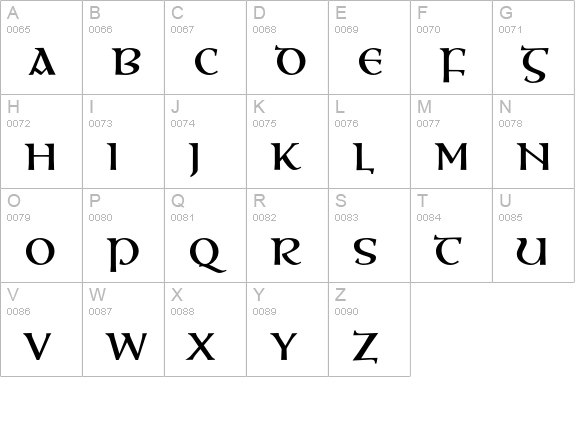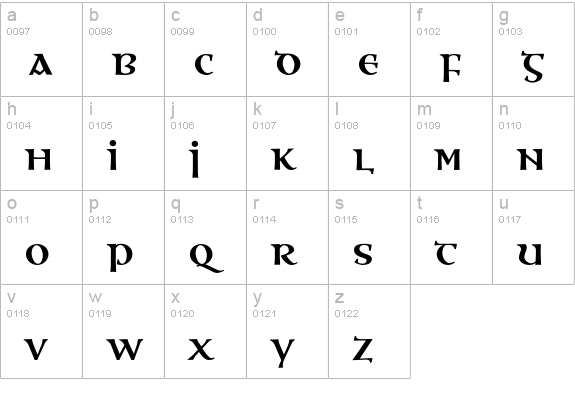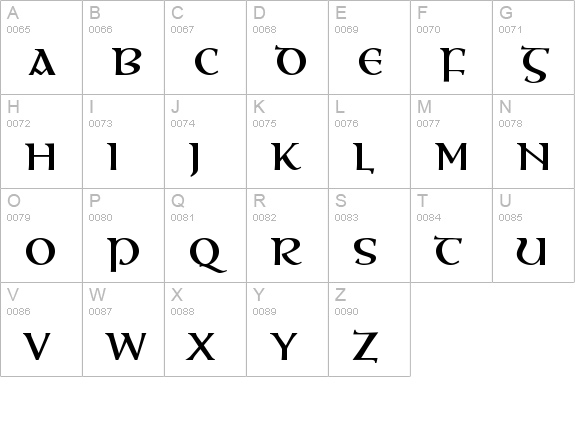
OssianEF-BoldSC Font Details
OssianEF-BoldSC is a striking and modern font that exudes confidence and strength. With its bold and stylish design, OssianEF-BoldSC is perfect for making a statement in your design projects. The sleek and elegant letterforms of this font make it ideal for headlines, logos, and branding materials. What sets OssianEF-BoldSC apart is that it is available for free download at FontsMarket.com. This means you can easily access this high-quality font and use it in your projects without any cost. Whether you're a designer, freelancer, or hobbyist, OssianEF-BoldSC offers a versatile and eye-catching option for your typography needs. Download OssianEF-BoldSC today and elevate your designs with this impressive and bold font.